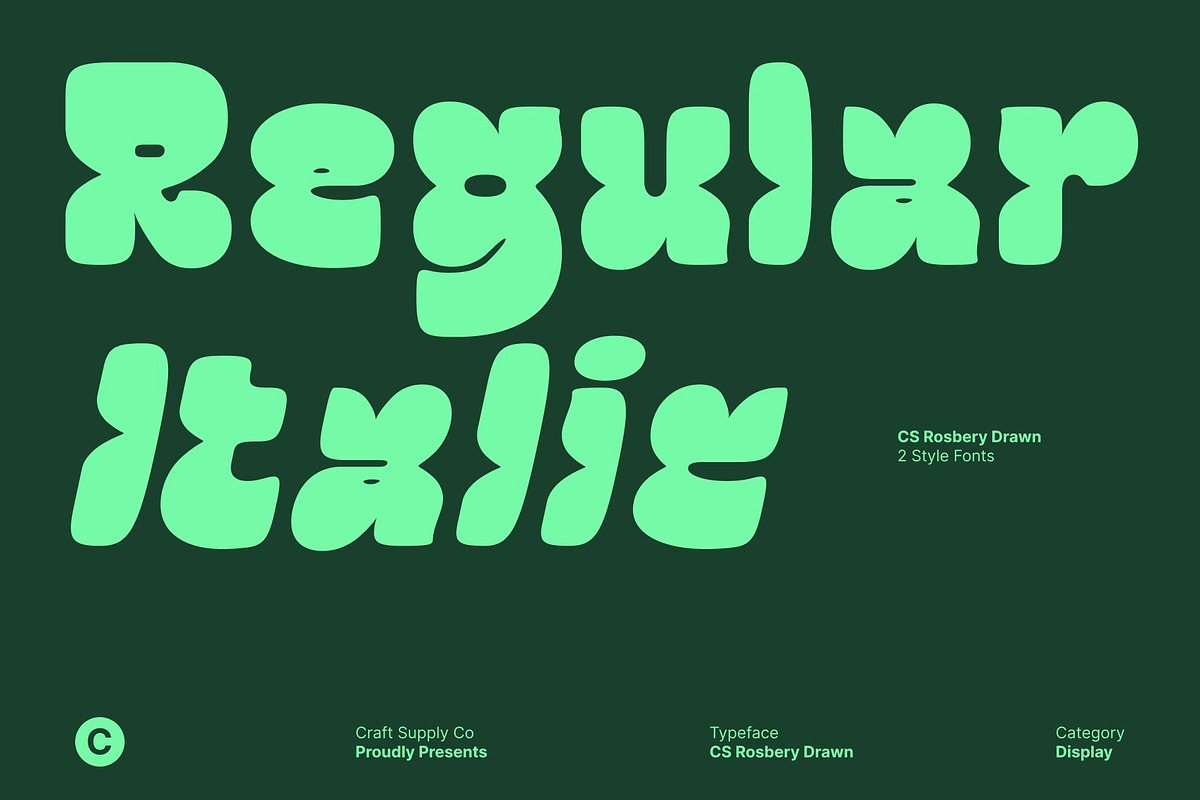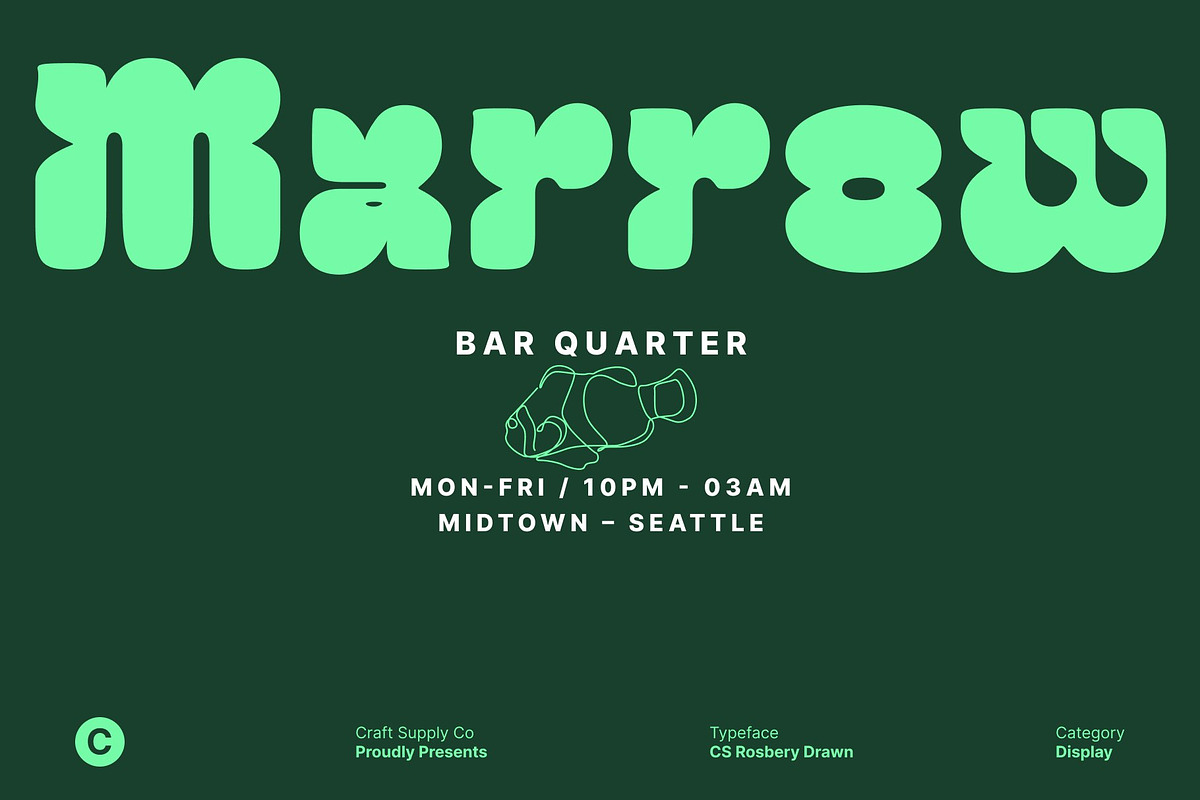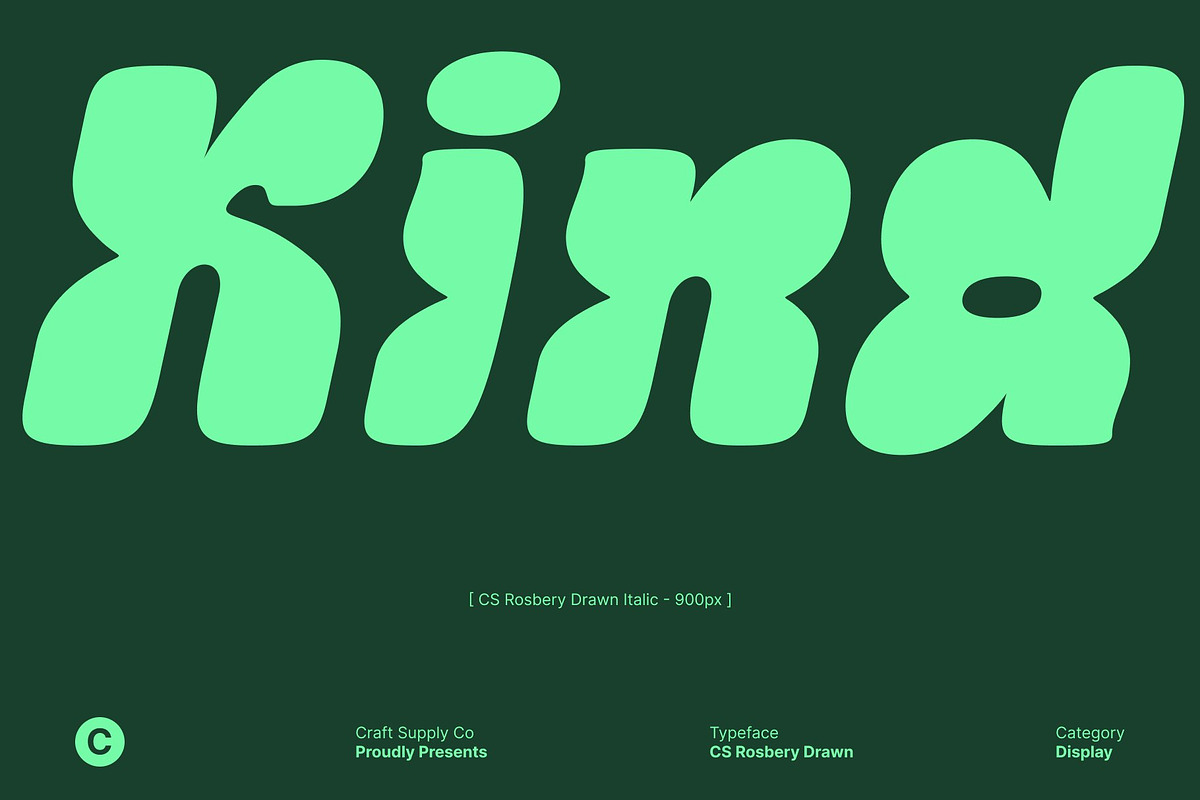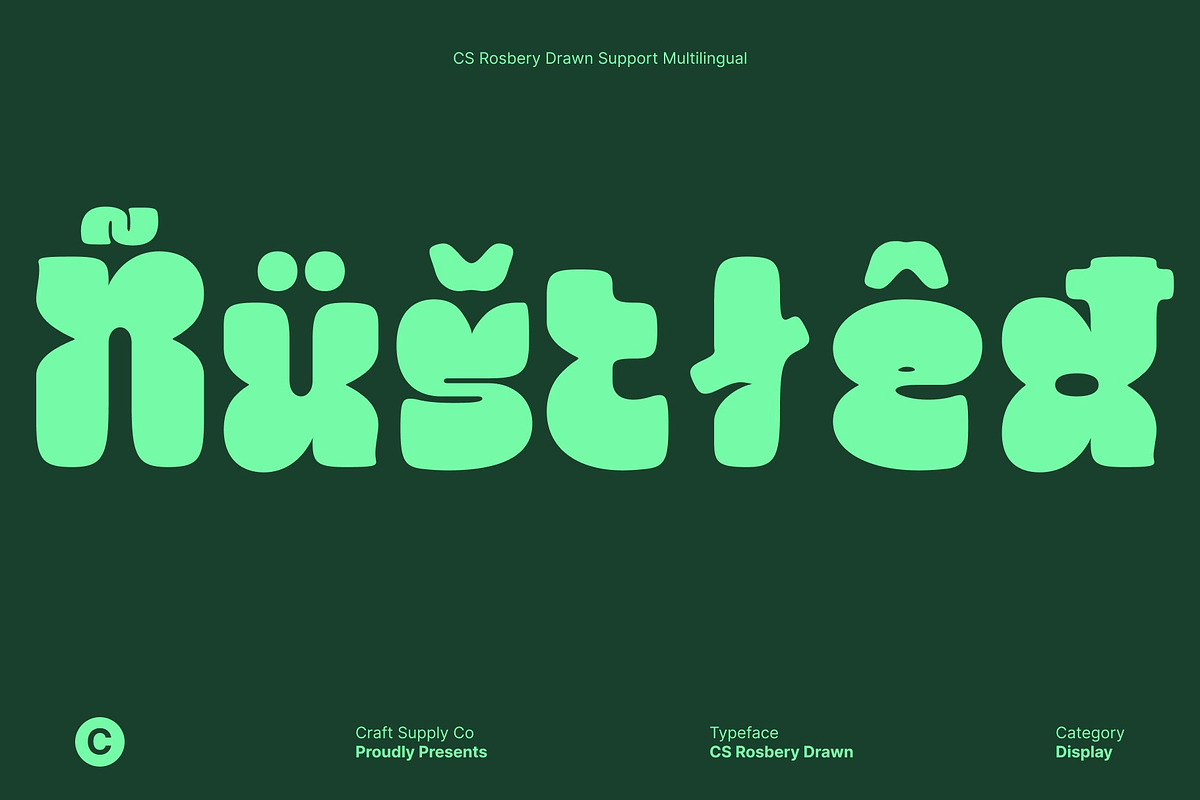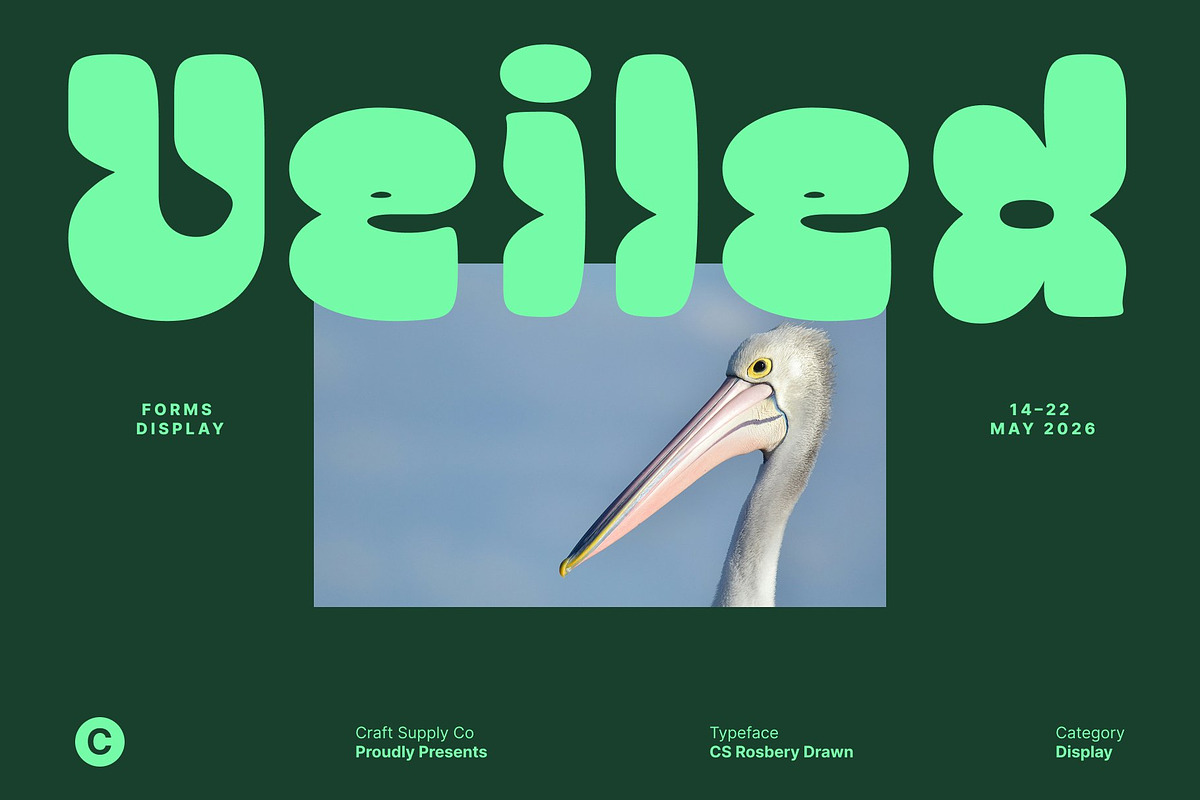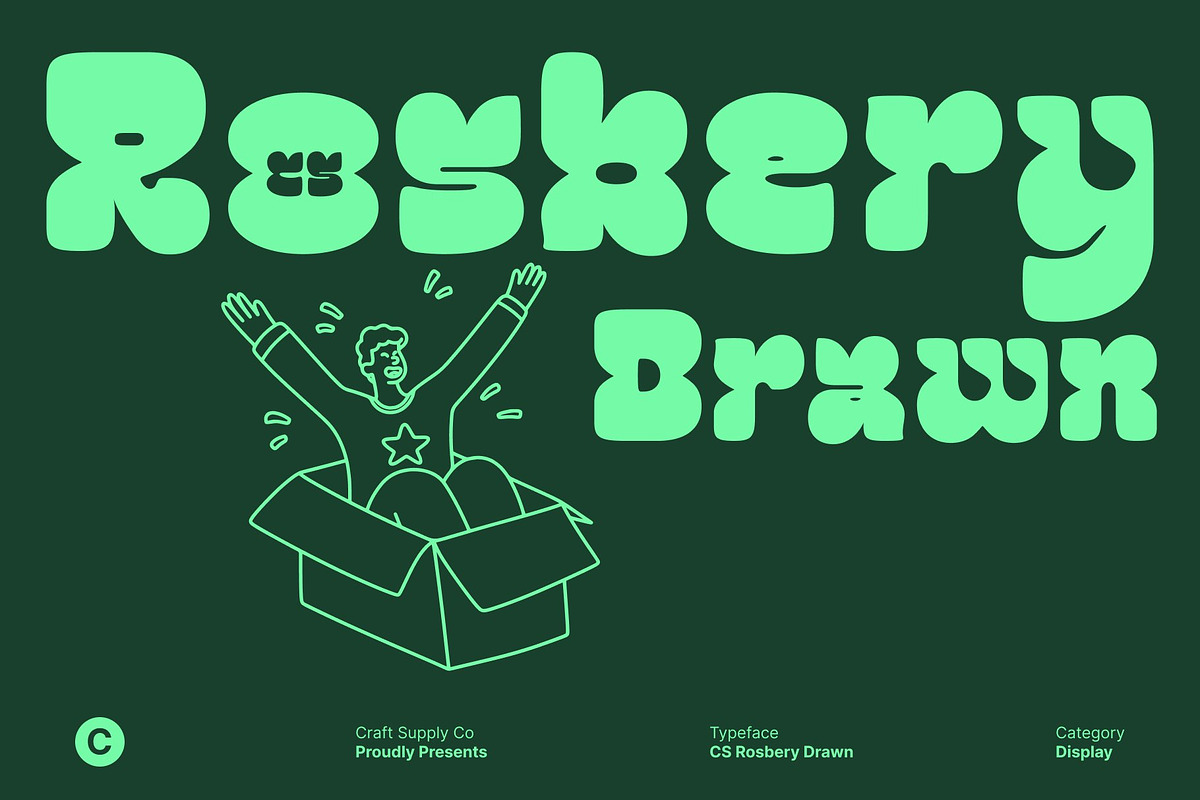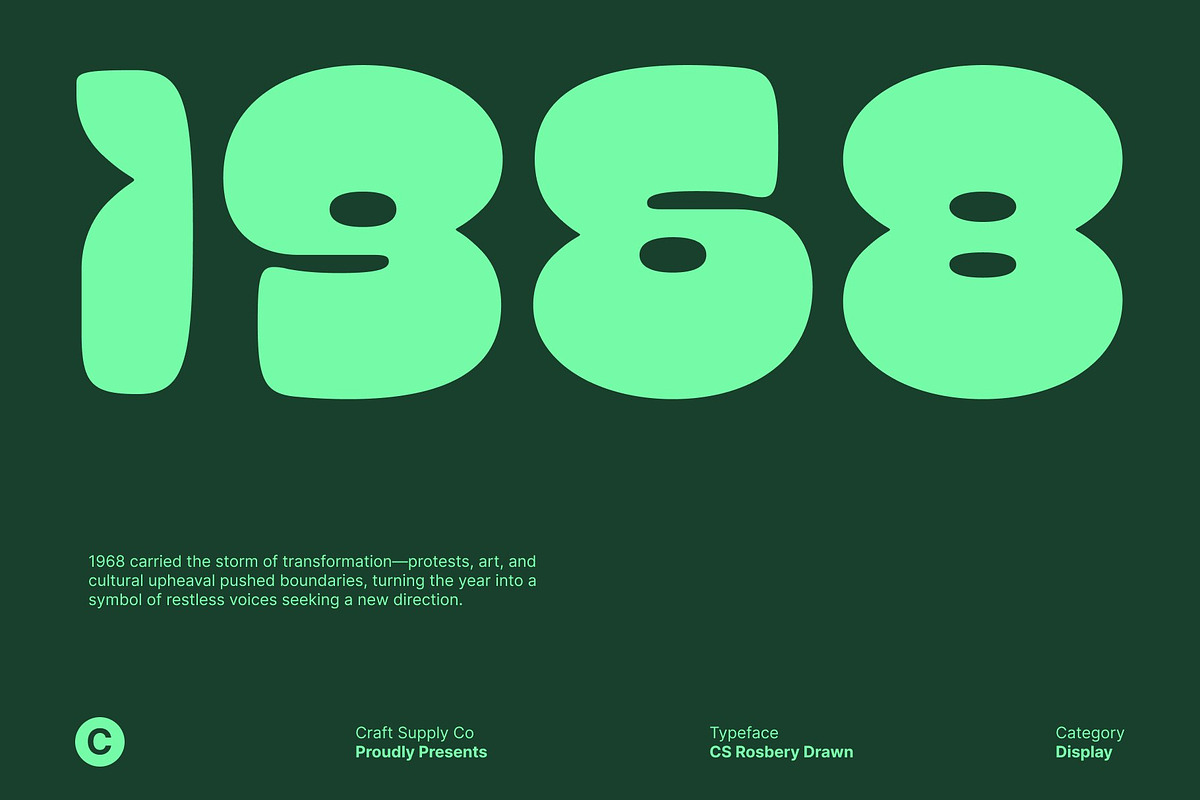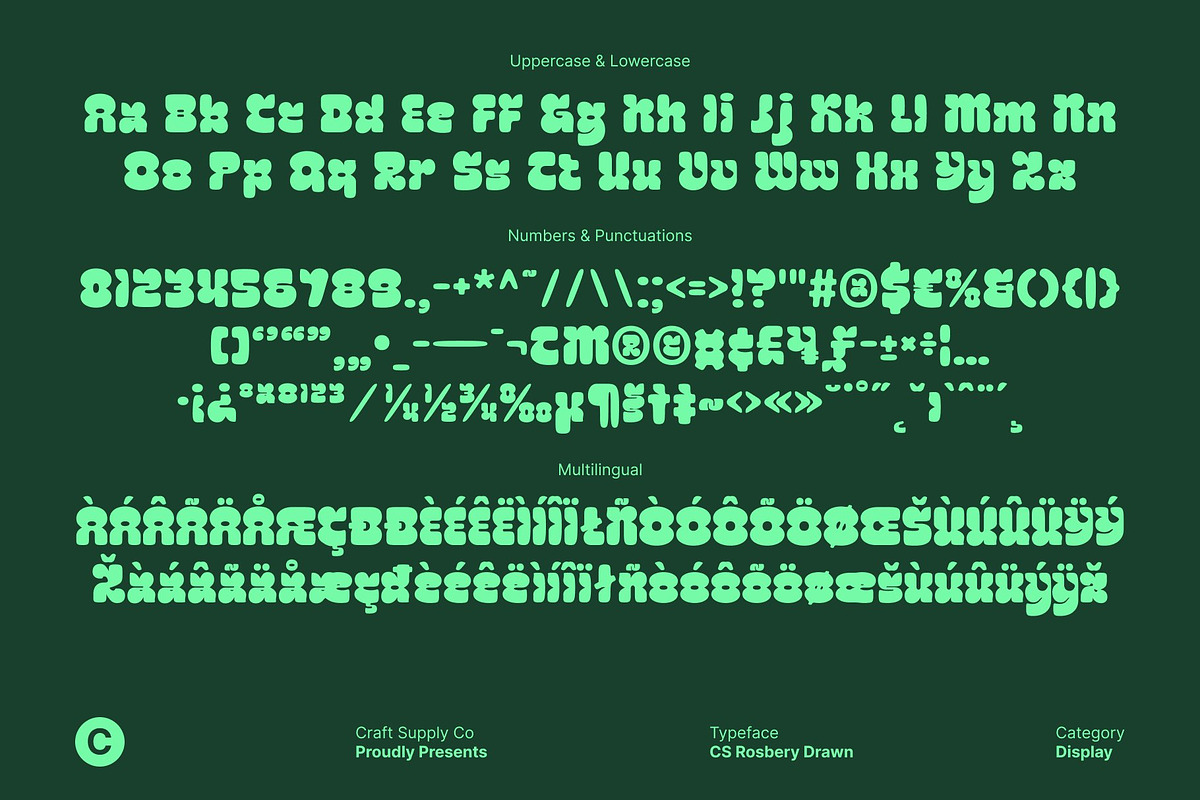
CS Rosbery Drawn
CS Rosbery Drawn – Bold Display Font with Funky Floral Flair and Hand-Drawn Texture
A Striking Display Typeface with Playful Personality This is a bold and eye-catching display font that combines strong weight with playful, floral-inspired shapes. Its striking forms demand attention, making it ideal for designers seeking typography that stands out in headlines, posters, and branding projects. The unique combination of bold structure and whimsical curves creates a visually dynamic and fun aesthetic.
Hand-Drawn Texture for Artistic Expression The drawn effect adds organic texture and subtle irregularities to each character, giving this font a handcrafted, expressive quality. This tactile detail enhances the playful, floral-inspired forms, transforming bold letters into visually engaging, one-of-a-kind designs. The textured finish ensures every application feels creative and unique.
Perfect for Posters, Headlines, and Strong Branding This font excels in projects where impact and personality are key. It’s ideal for creative posters, attention-grabbing headlines, brand logos, and packaging that require bold yet playful typography. Its blend of strength, artistry, and funky charm makes it versatile for both professional and experimental design contexts.
A Bold, Funky Typeface with Unique Visual Flair By combining heavy display weight, floral-inspired curves, and a hand-drawn textured finish, this font delivers a typeface that is both bold and playful. It’s perfect for designers looking to create memorable, artistic, and visually dynamic compositions that capture attention and convey distinctive personality.
- CS Rosbery Drawn Regular
- CS Rosbery Drawn Italic